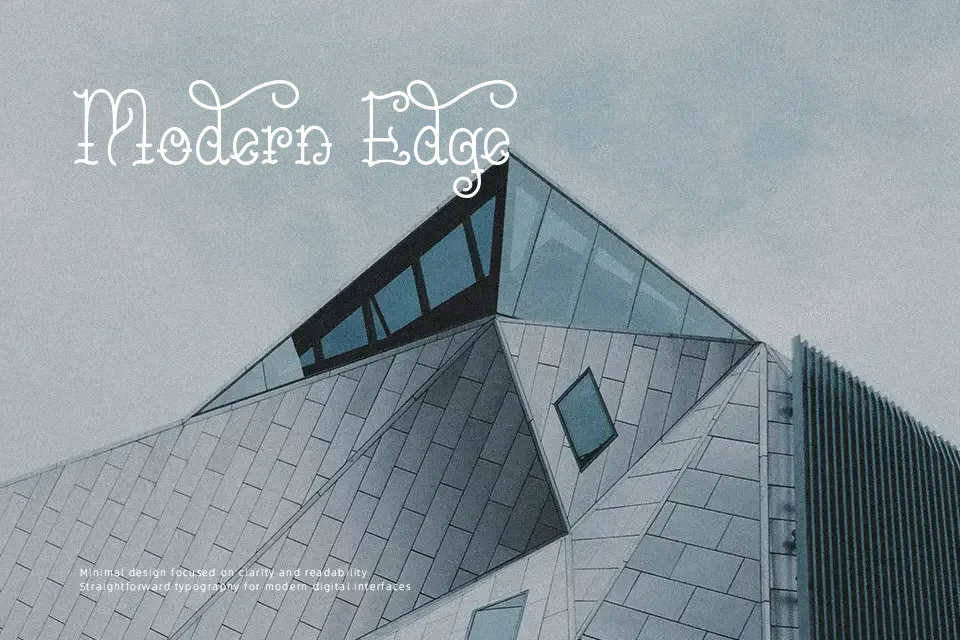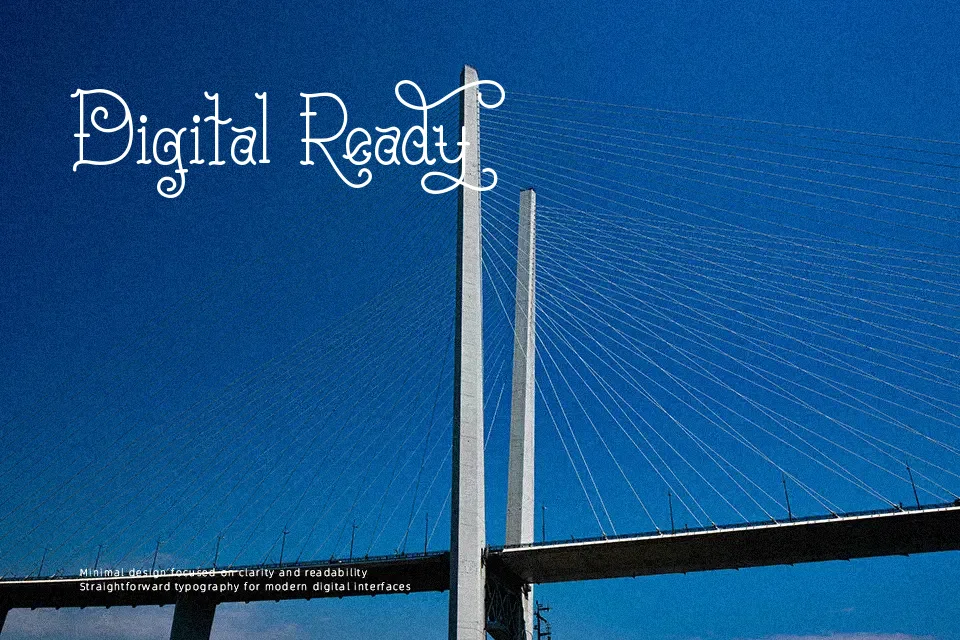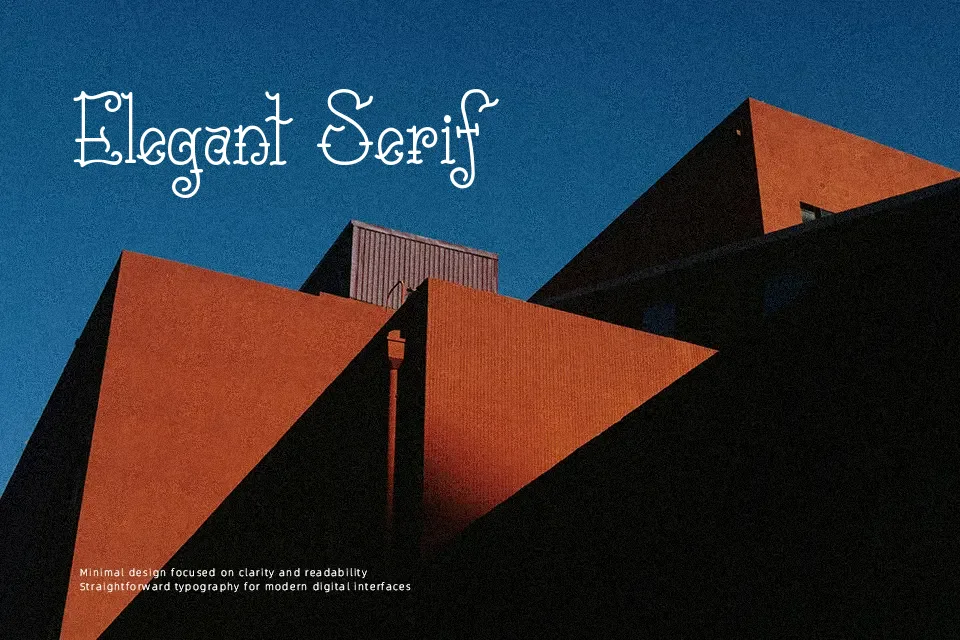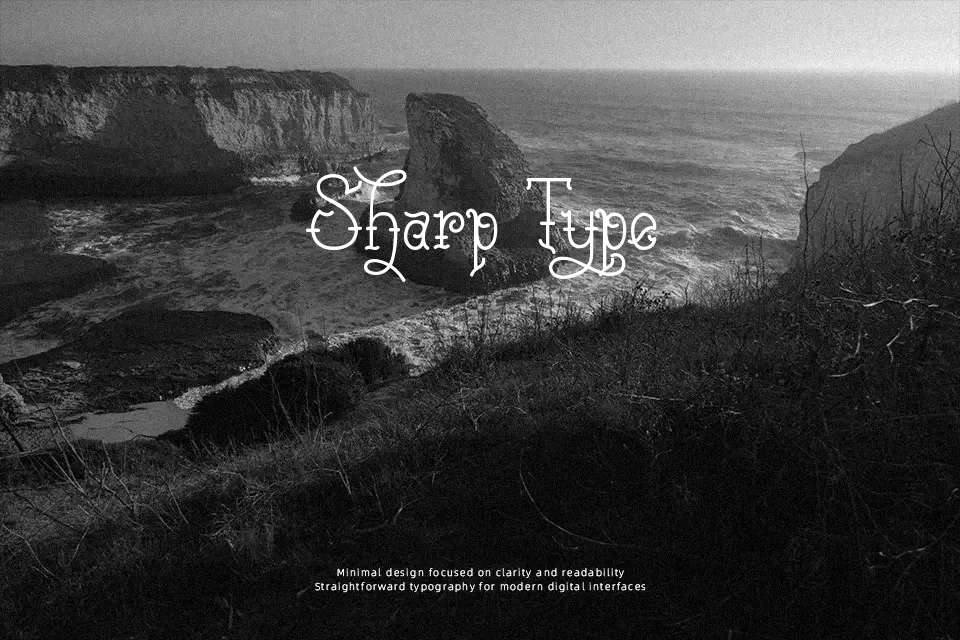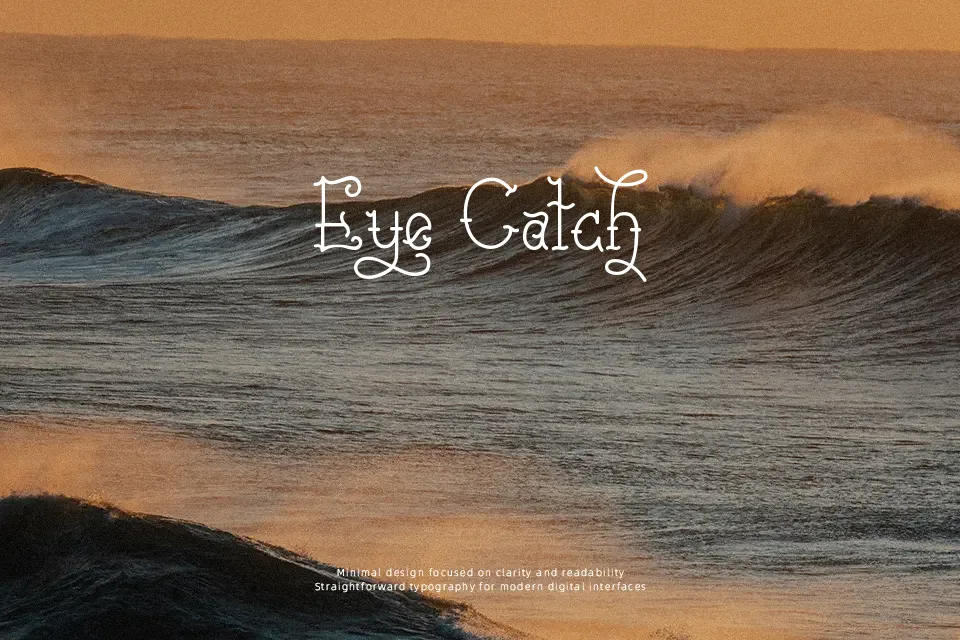
Sailorette Tattoo Font
Sailorette Tattoo Font presents a structured yet organic hand-drawn appearance characterized by smooth, medium-weight strokes. The letterforms display balanced, slightly condensed proportions that evoke classic flash art typography, maintaining a comfortable visual rhythm through uniform character heights. Its tight spacing helps maintain clarity in larger headlines, making the typeface highly effective for vintage apparel graphics, barbershop branding, and striking gig posters. The bold curves ensure high visibility when applied to product packaging or bold logos. However, the distinct traditional aesthetic and dense structural forms reduce continuous reading comfort, making these letterforms less suitable for dense editorial layouts or long paragraph text. The decorative details become less effective at smaller sizes, requiring careful scaling.
vintage product packaging
apparel graphics
Perfect for branding, fashion, and packaging, with a artistic and decorative style.